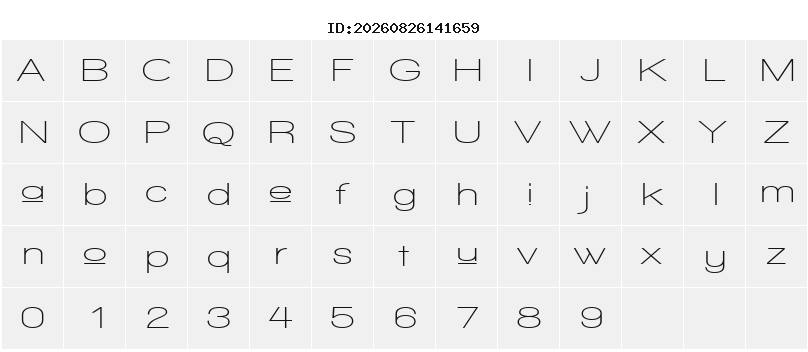
About Walkway Upper Expand Semi.ttf
Walkway Upper Expand Semi.ttf is a modern, elegant sans-serif font designed for ultimate readability and visual harmony. Perfect for branding, headlines, web design, and print materials.